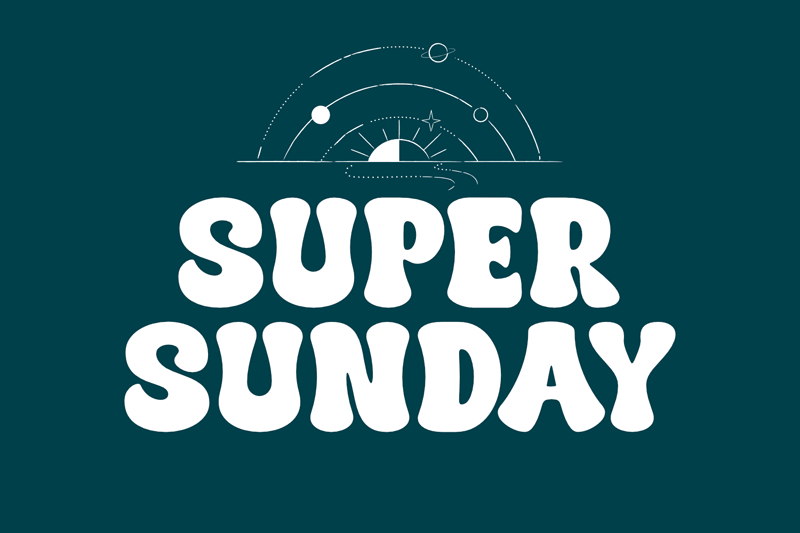
Preview and download Super Sunday Font. Created by fsuarez913 in Fancy Groovy styles with Free for personal use license.
This font is for PERSONAL USE ONLY!. If you want to use this font for commercial purposes, you will need to purchase a commercial license. You can purchase a commercial license at https://allsuperfont.com/product/super-sunday/ Introducing �Super Sunday,� a font that captures the essence of laid-back Sundays with a touch of retro flair. It�s the perfect fit for injecting a dose of personality into your designs, whether it�s for branding, invitations, posters, or just adding a unique touch to your social media posts. |